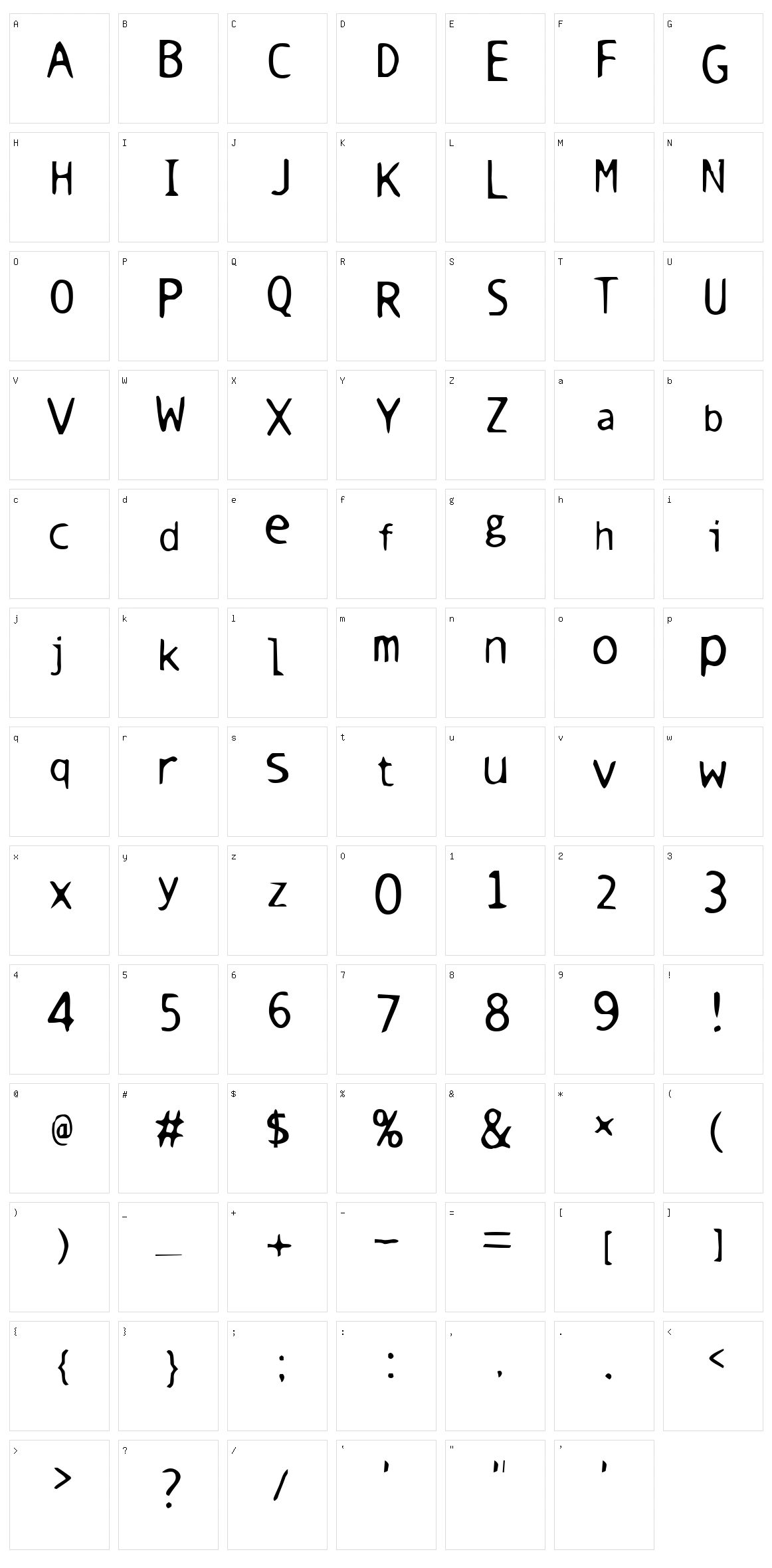
The free font Warm Milk is carefully designed by Pizzadude, showcasing a thoughtful balance of creativity and usability and falls under the Distorted font style. When you download the ZIP file, it contains only 15.3 KB of font files, making it lightweight and quick to download. Please review the license details below to understand permitted usage and distribution rights. If license information is not available, we recommend using this font for personal projects only or contacting the author directly for commercial usage permissions.